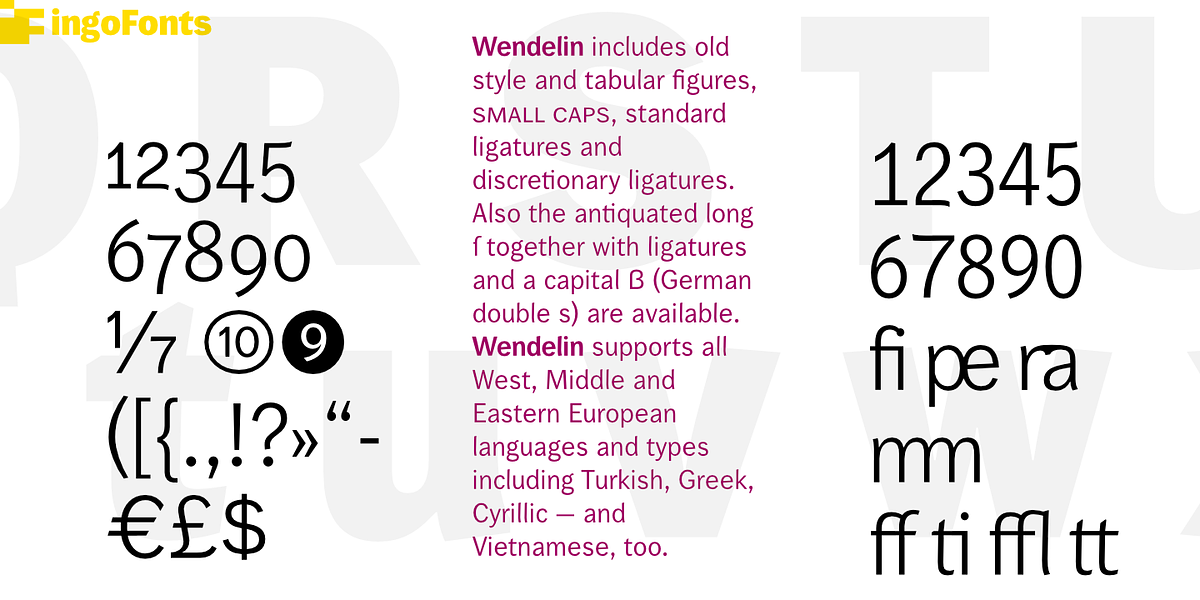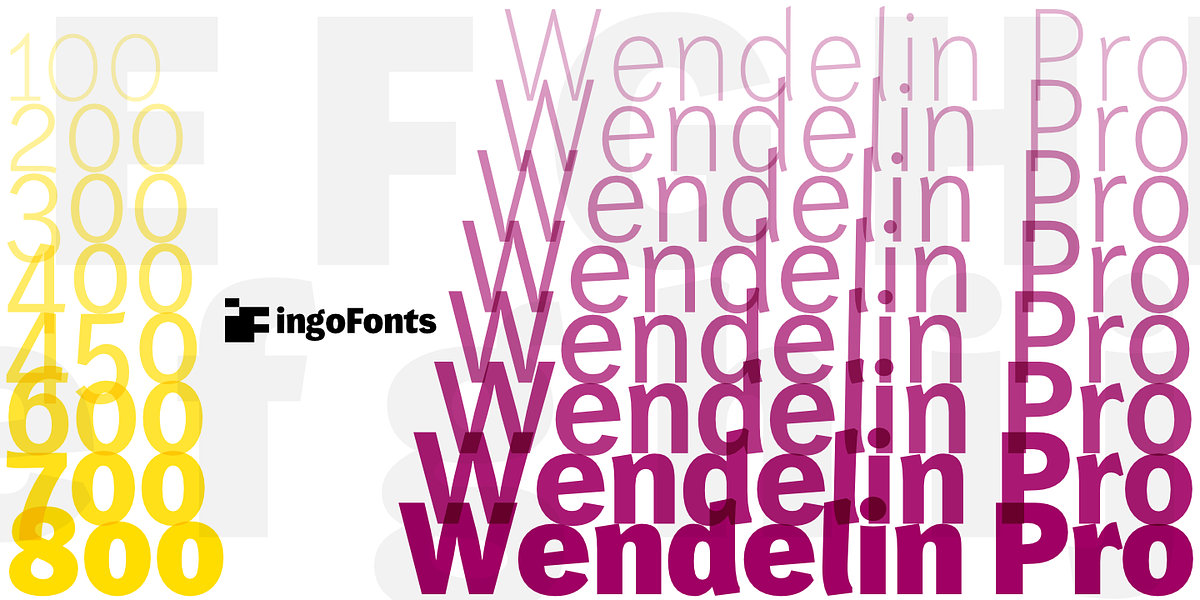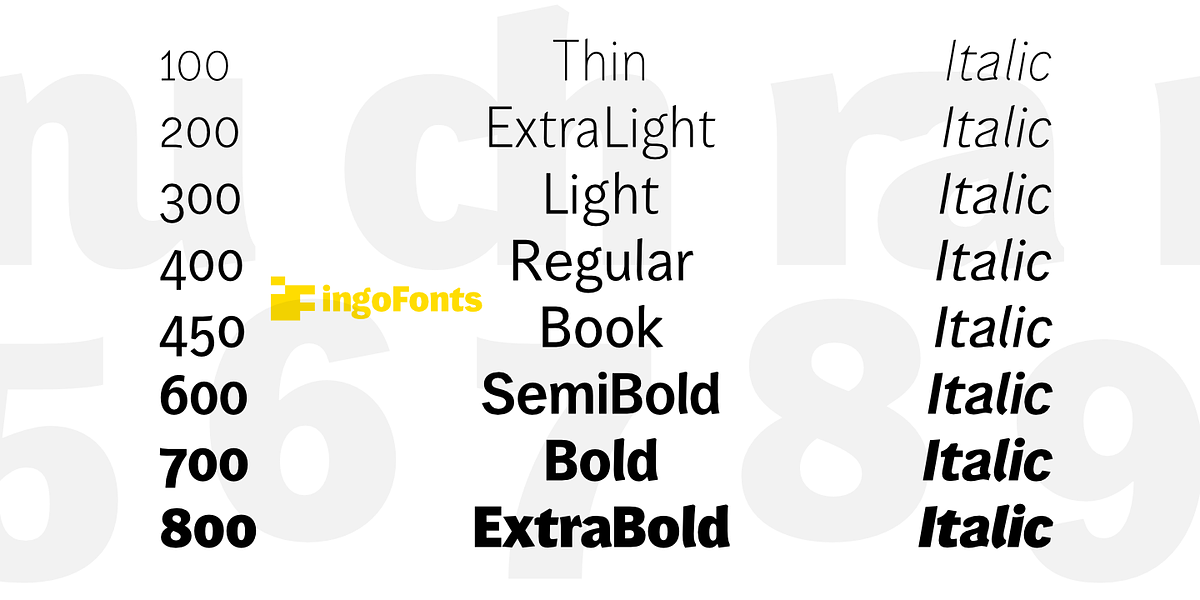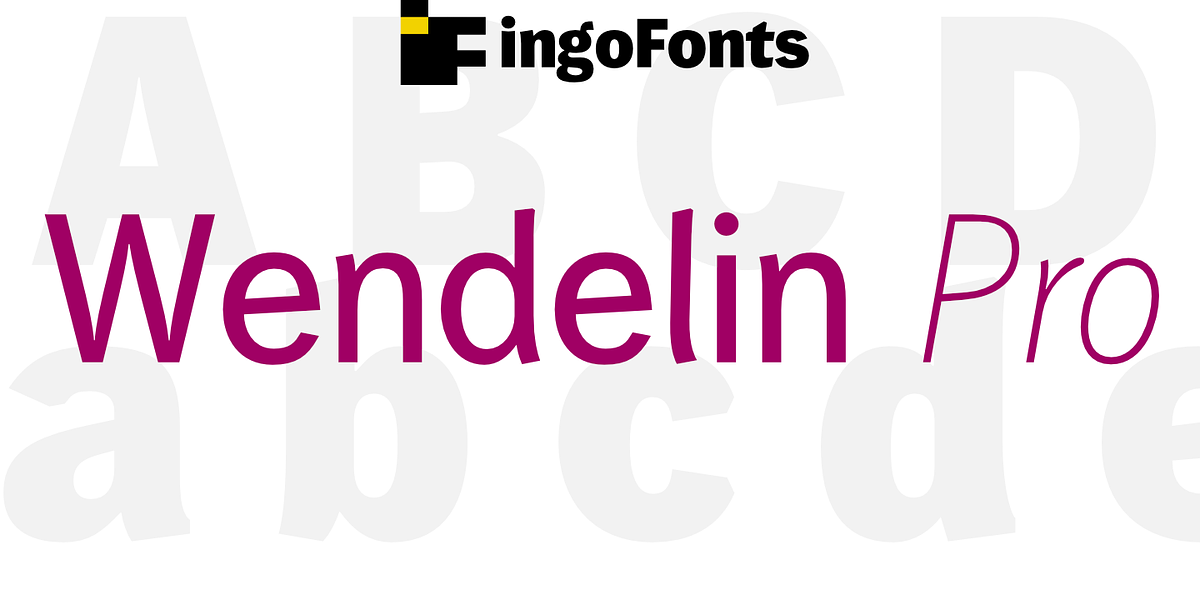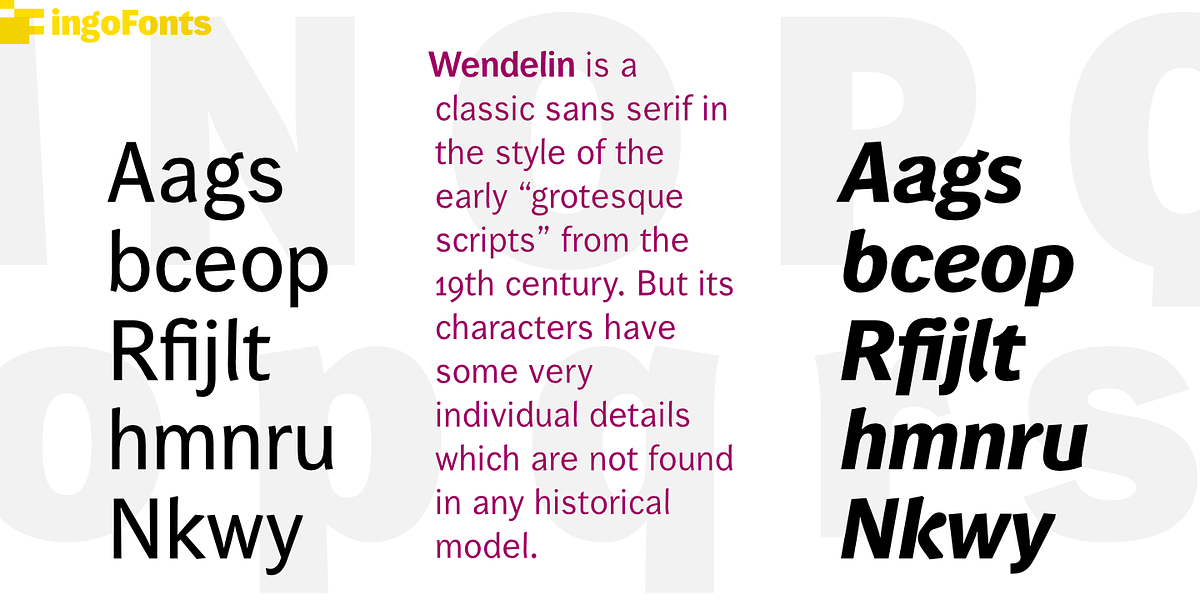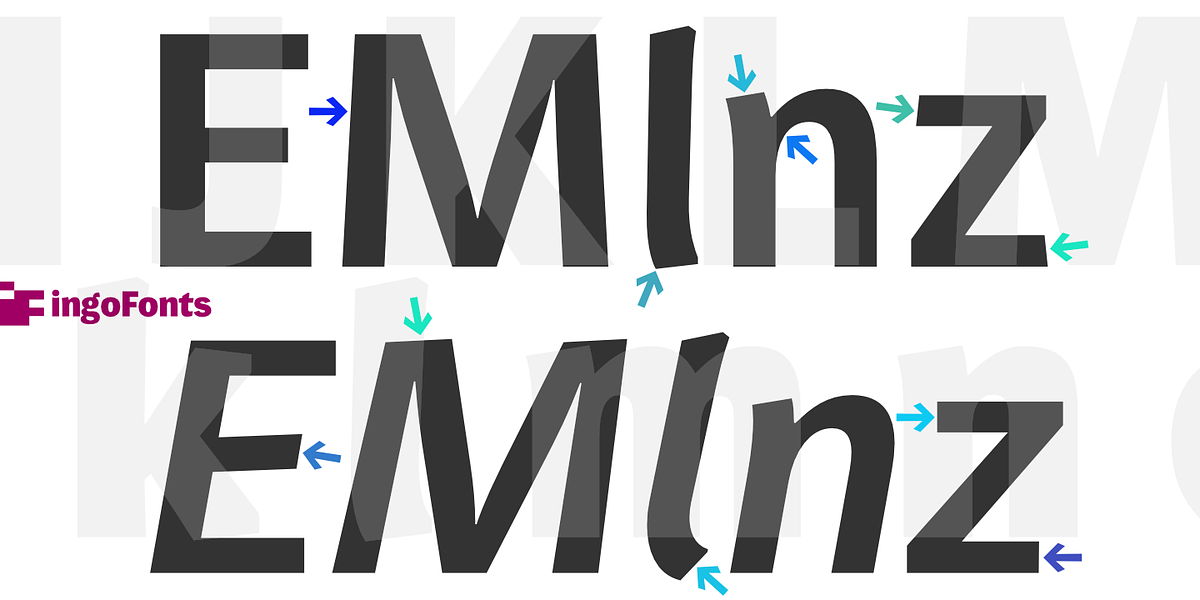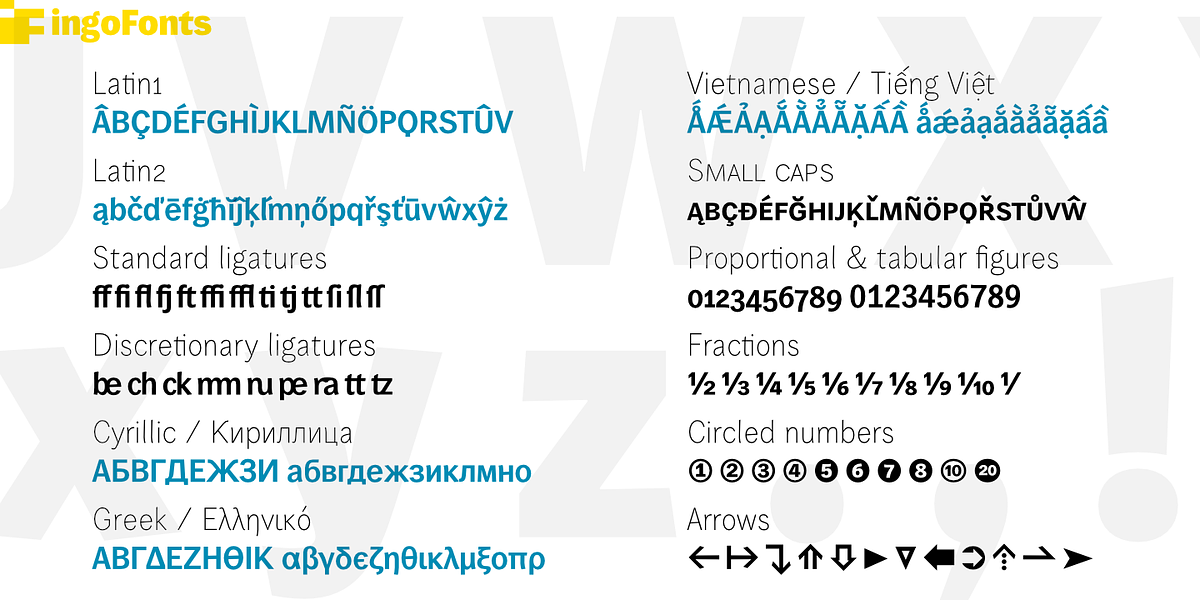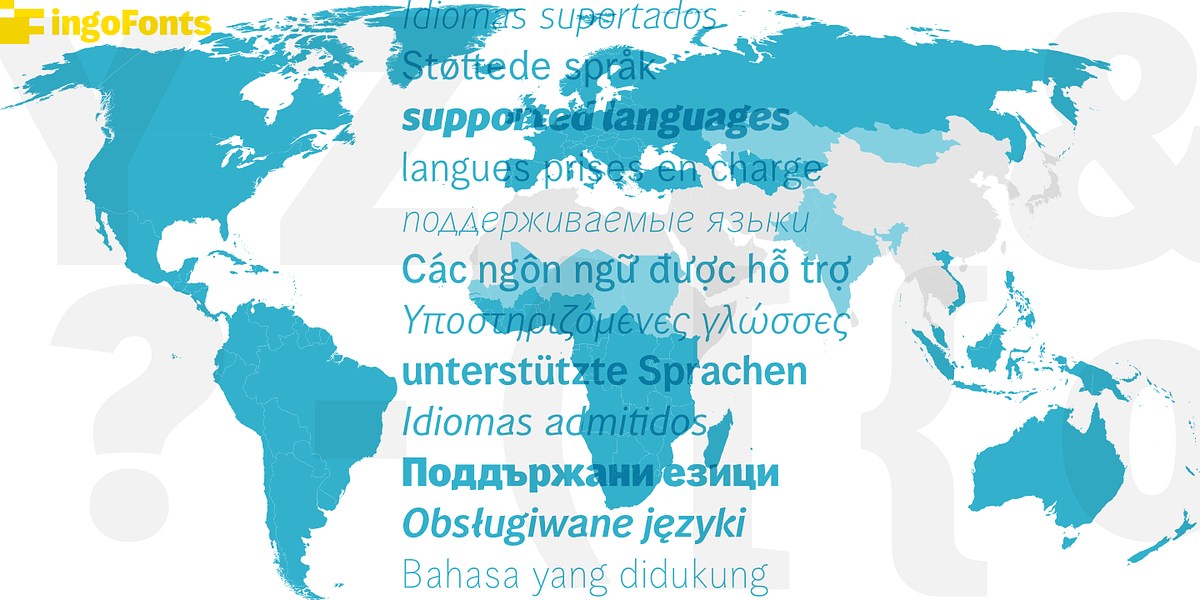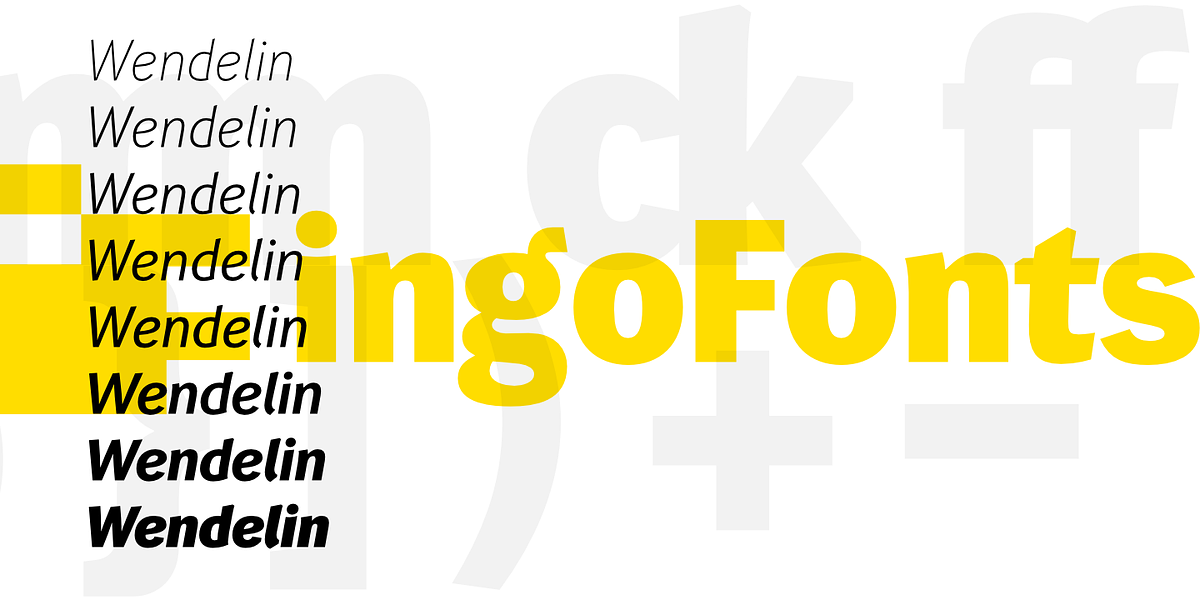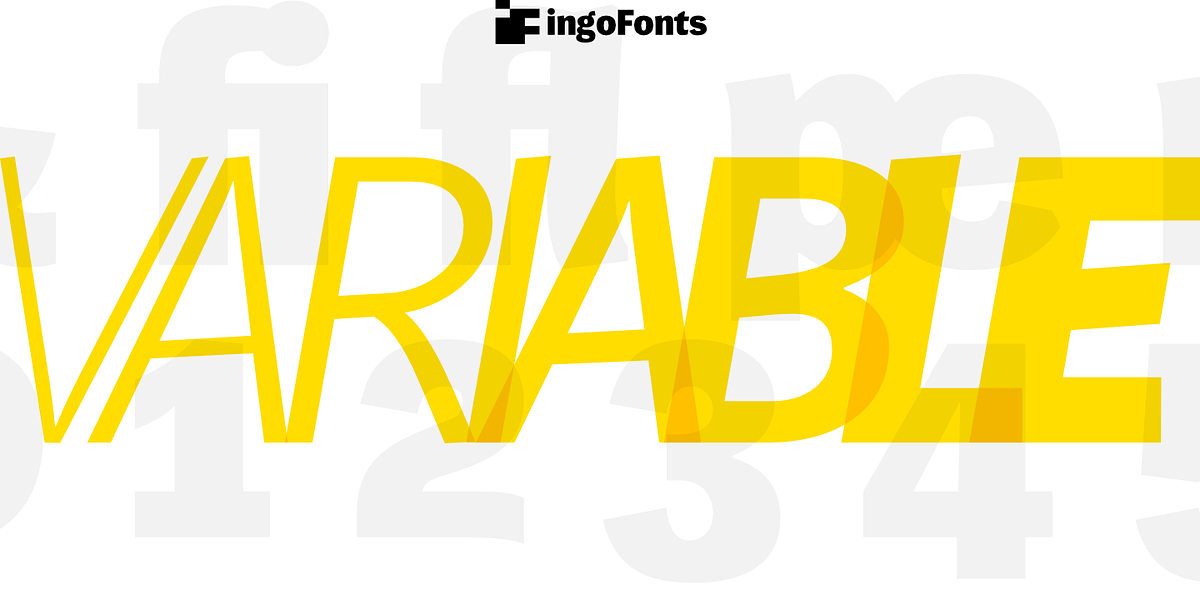
Wendelin Pro
Wendelin Pro is a sans serif font inspired by 19th-century grotesque fonts. It distinguishes itself with slightly bowed stroke endings that enhance legibility. The italic weights feature true italic forms rather than just slanted versions of the upright characters. The font supports a wide range of languages and includes OpenType features like historical forms, ligatures, small caps, alternative numerals, and arrows.